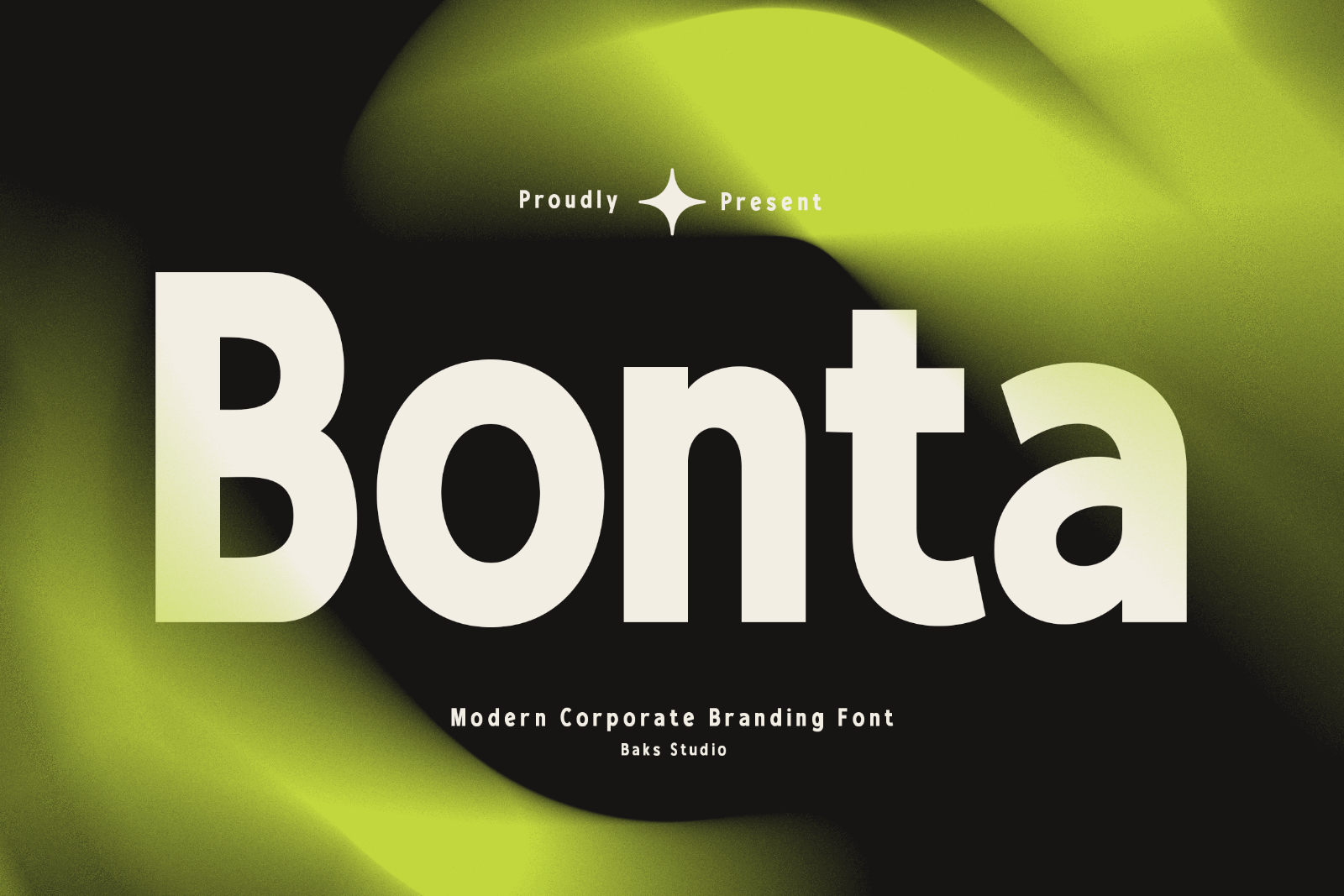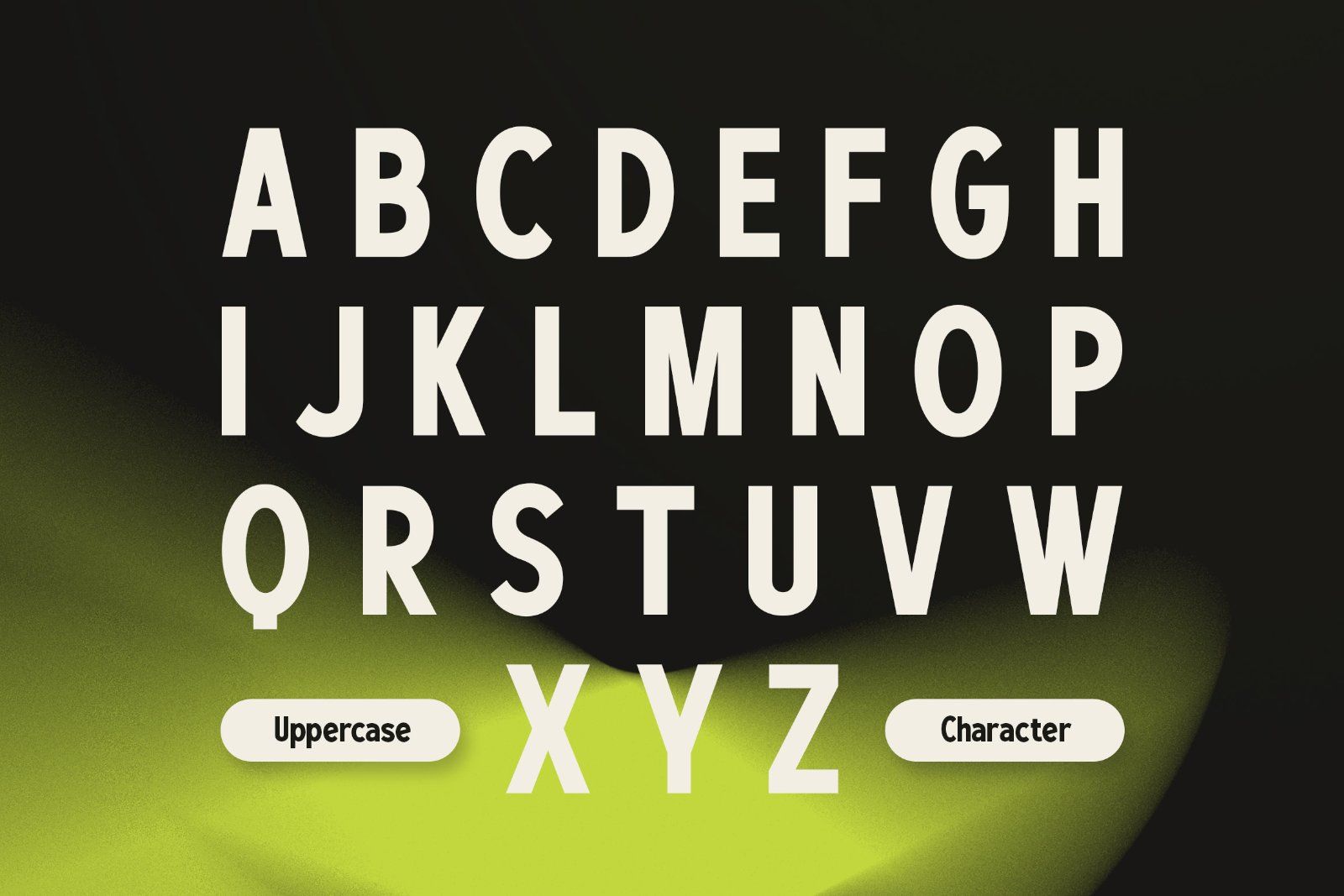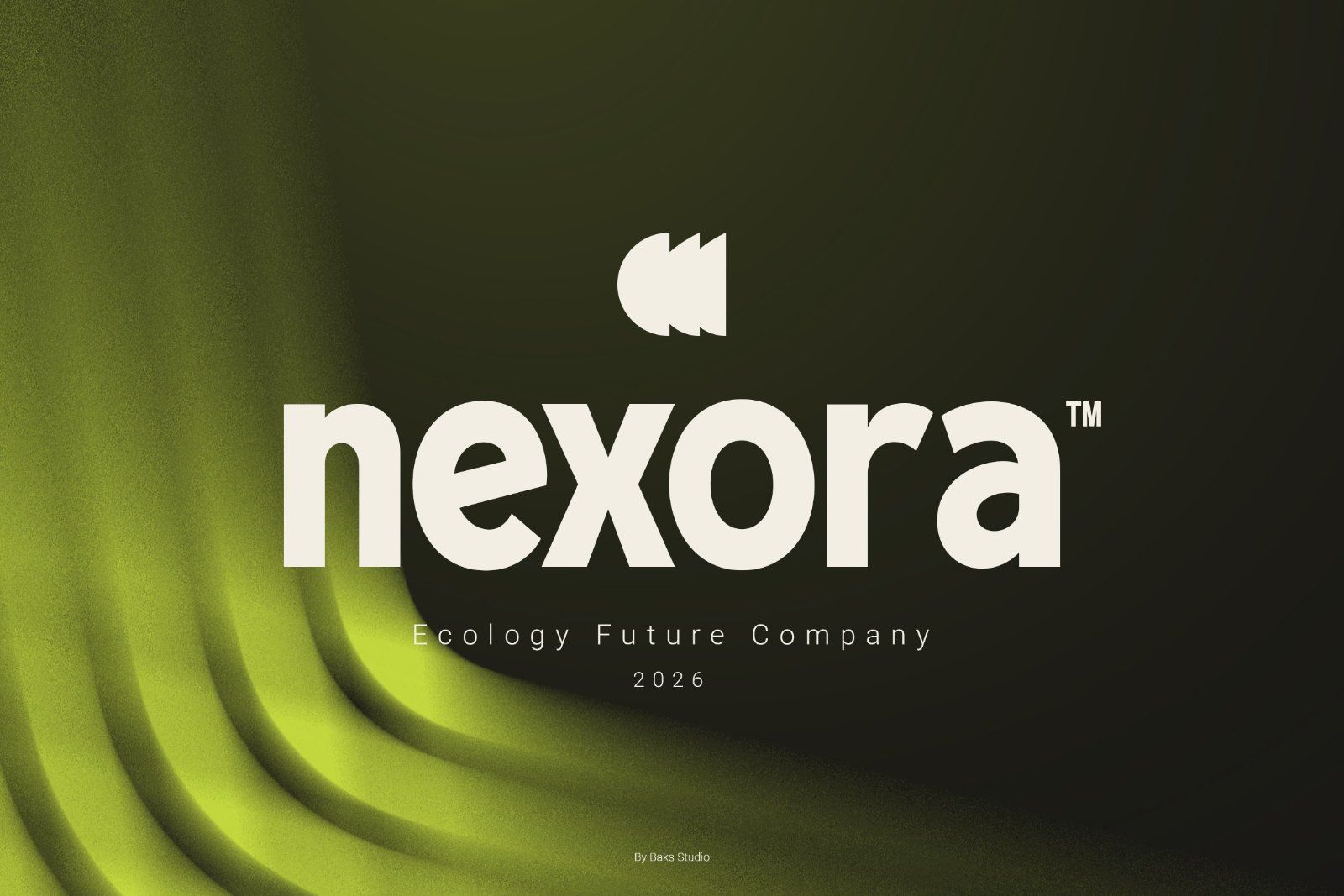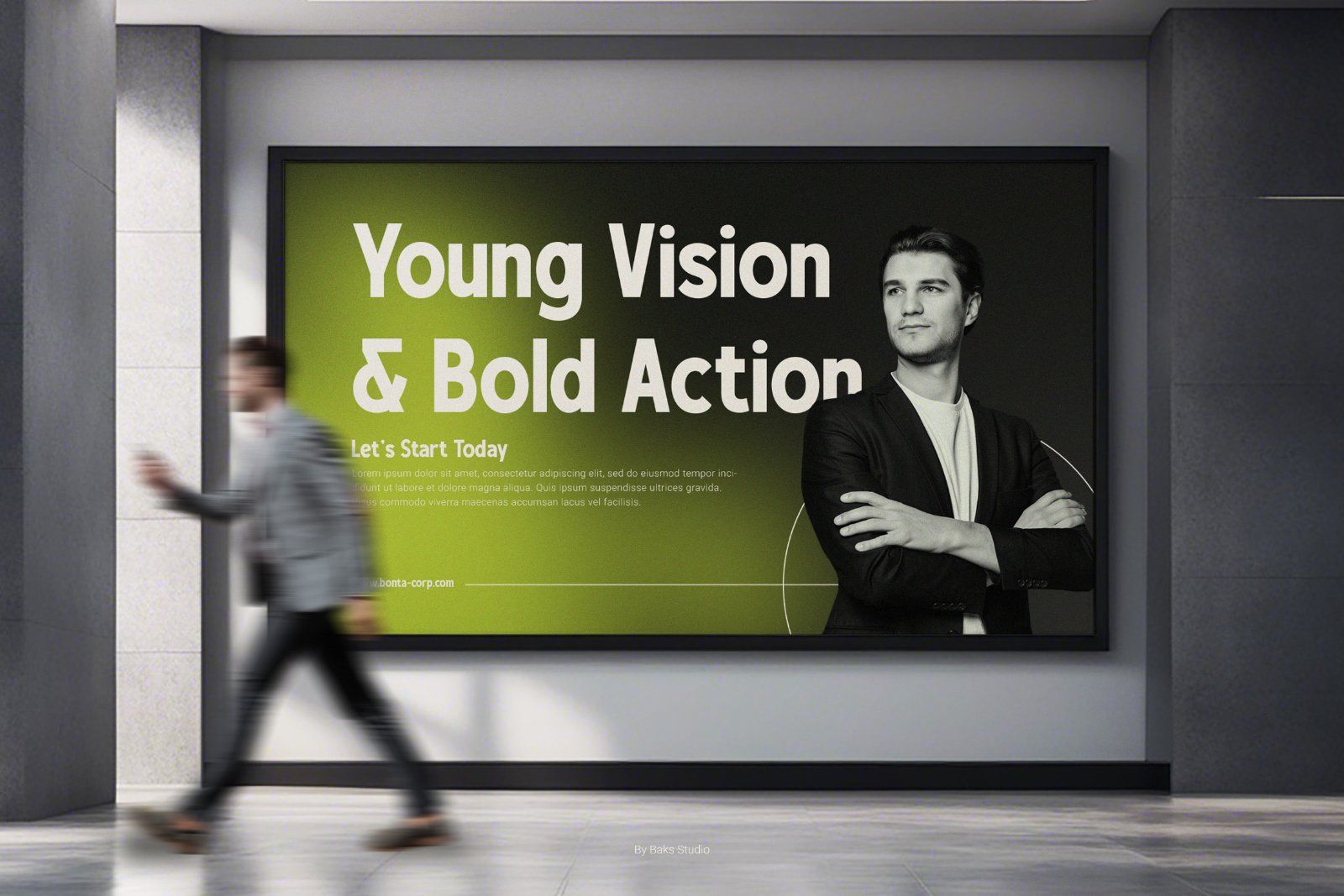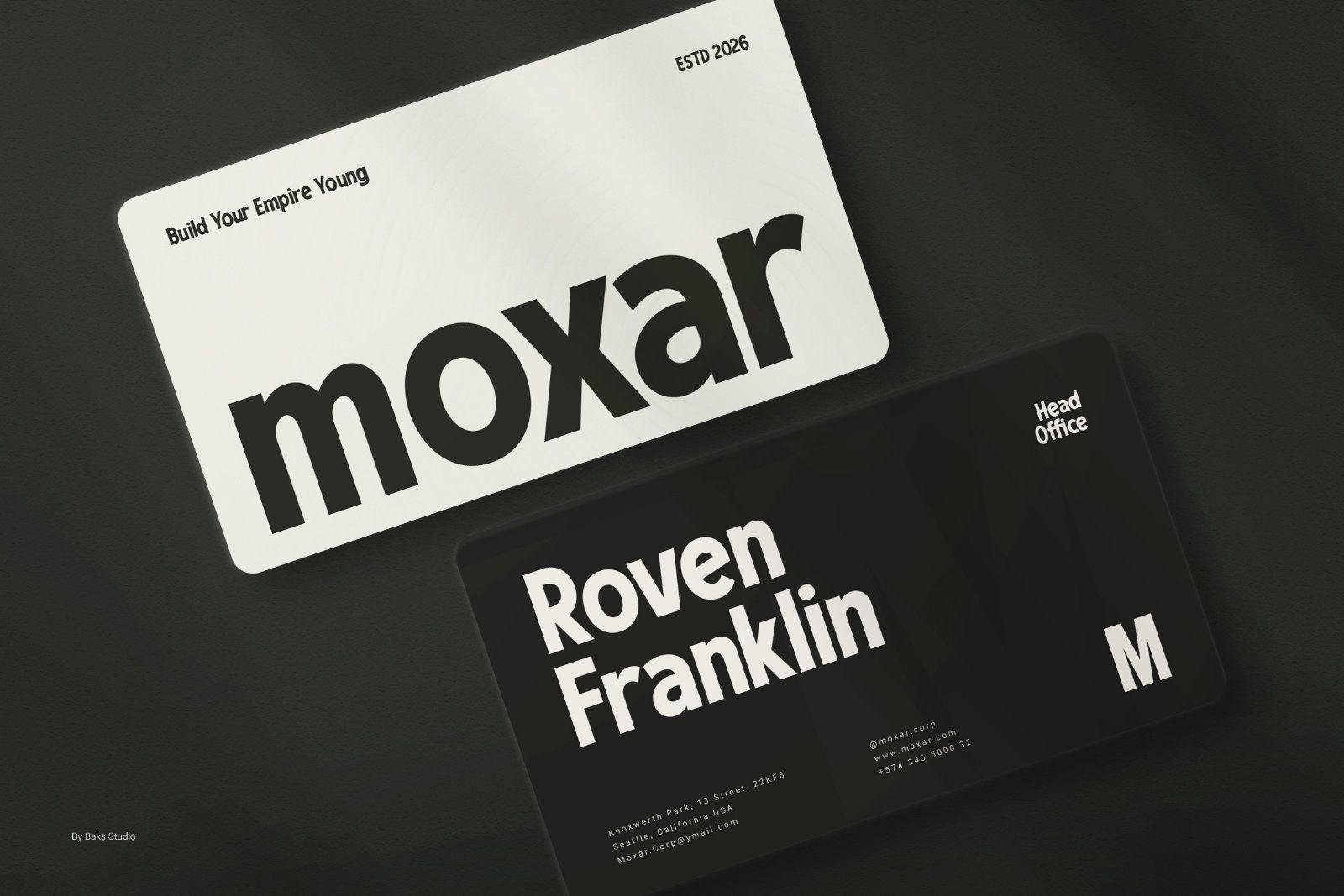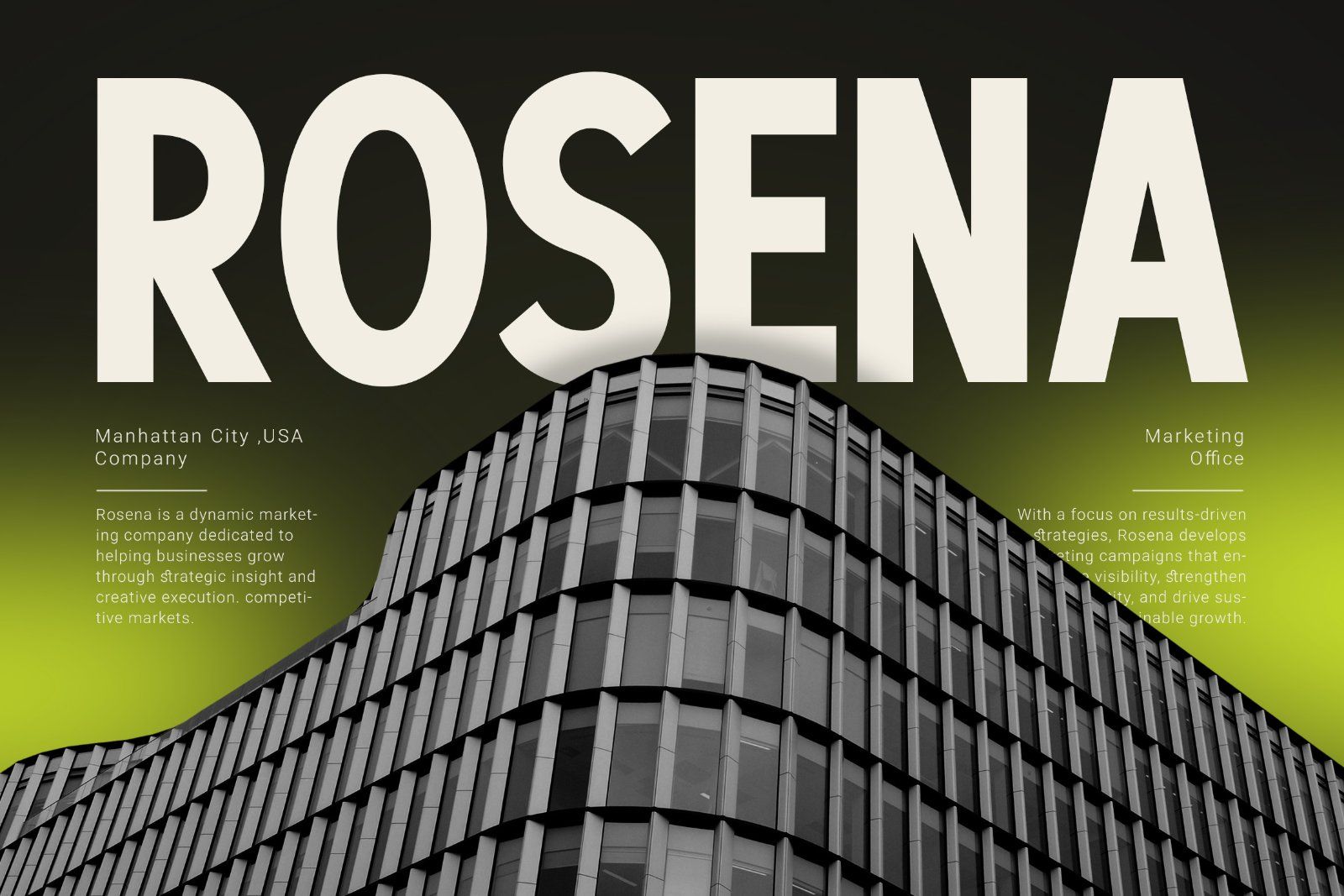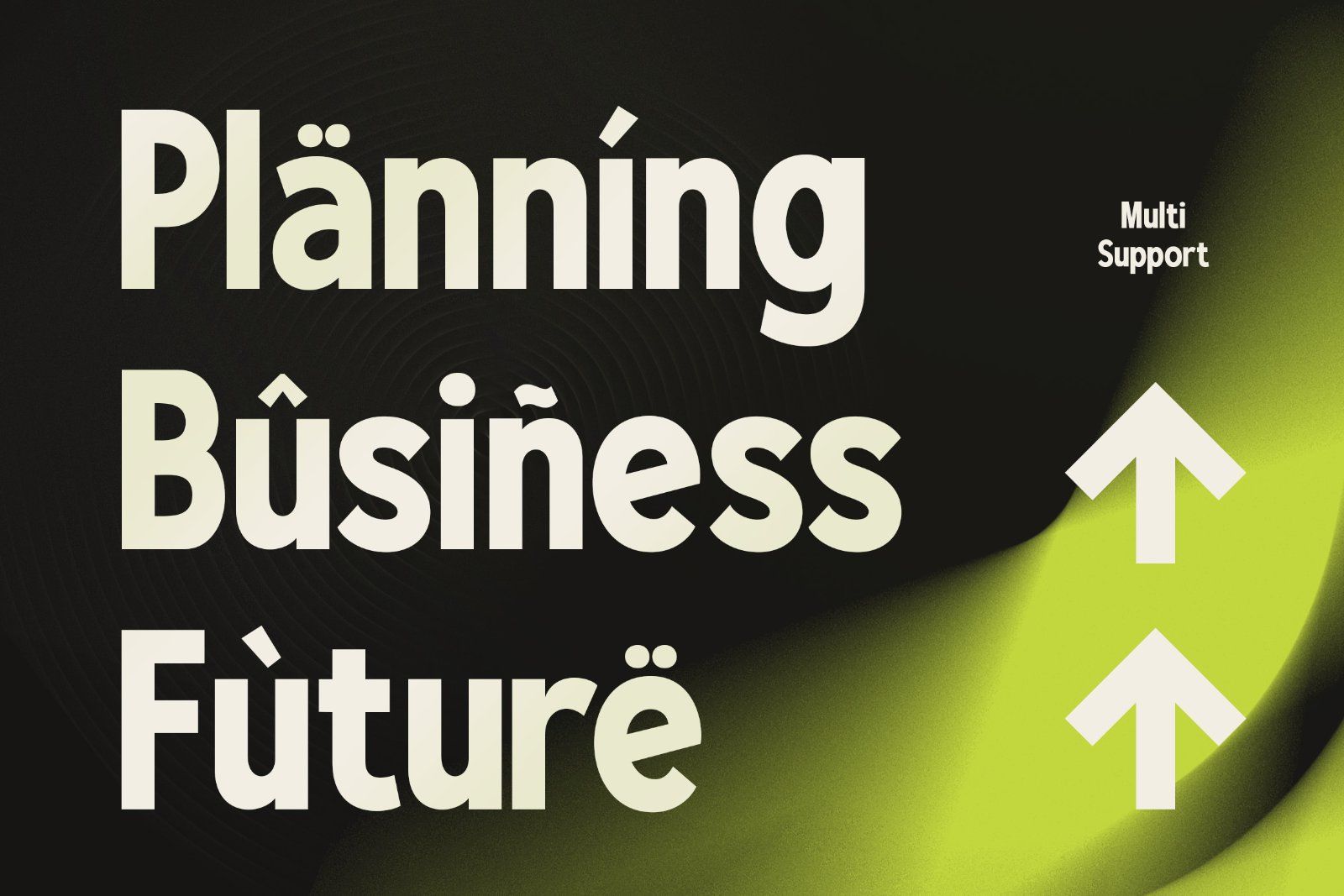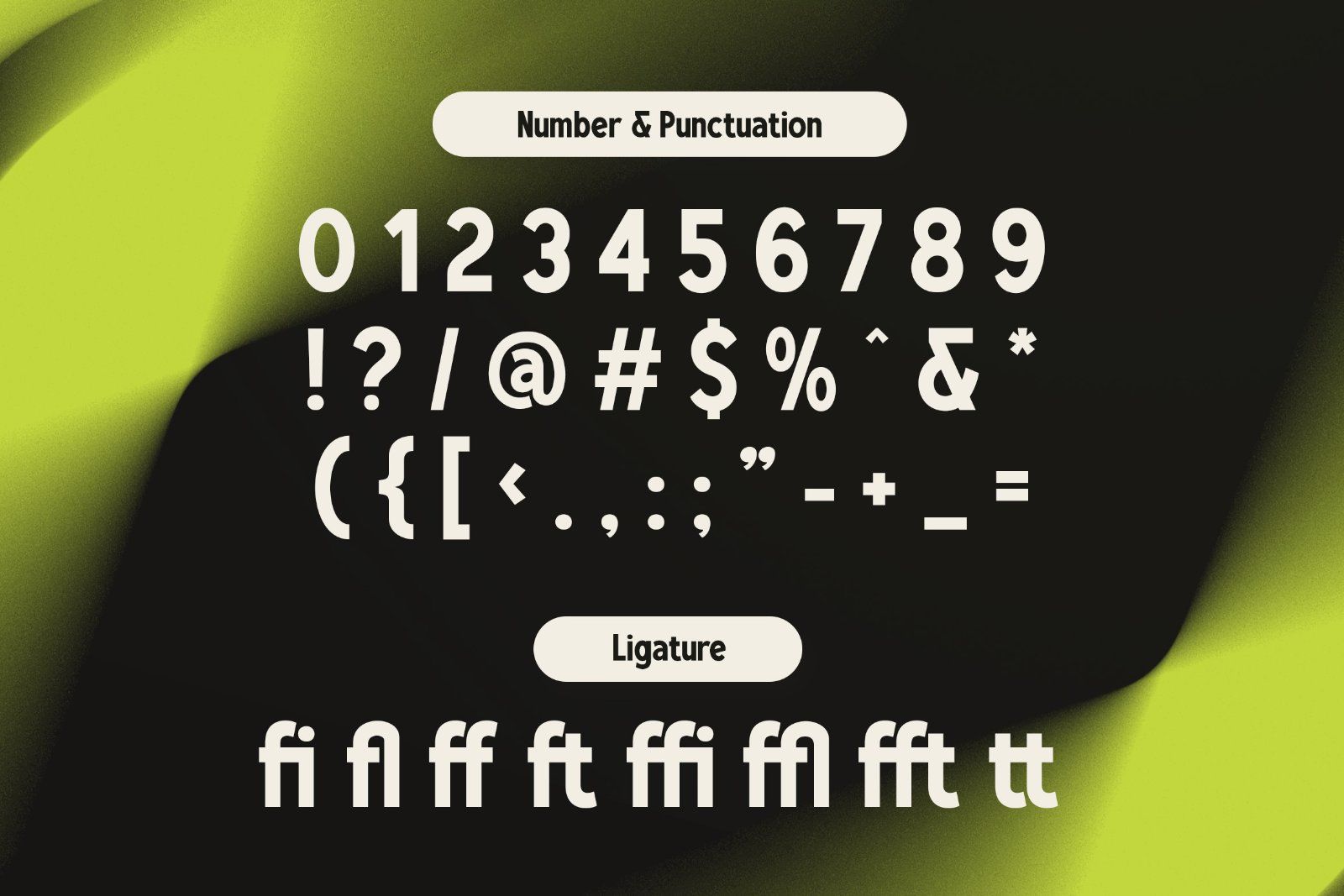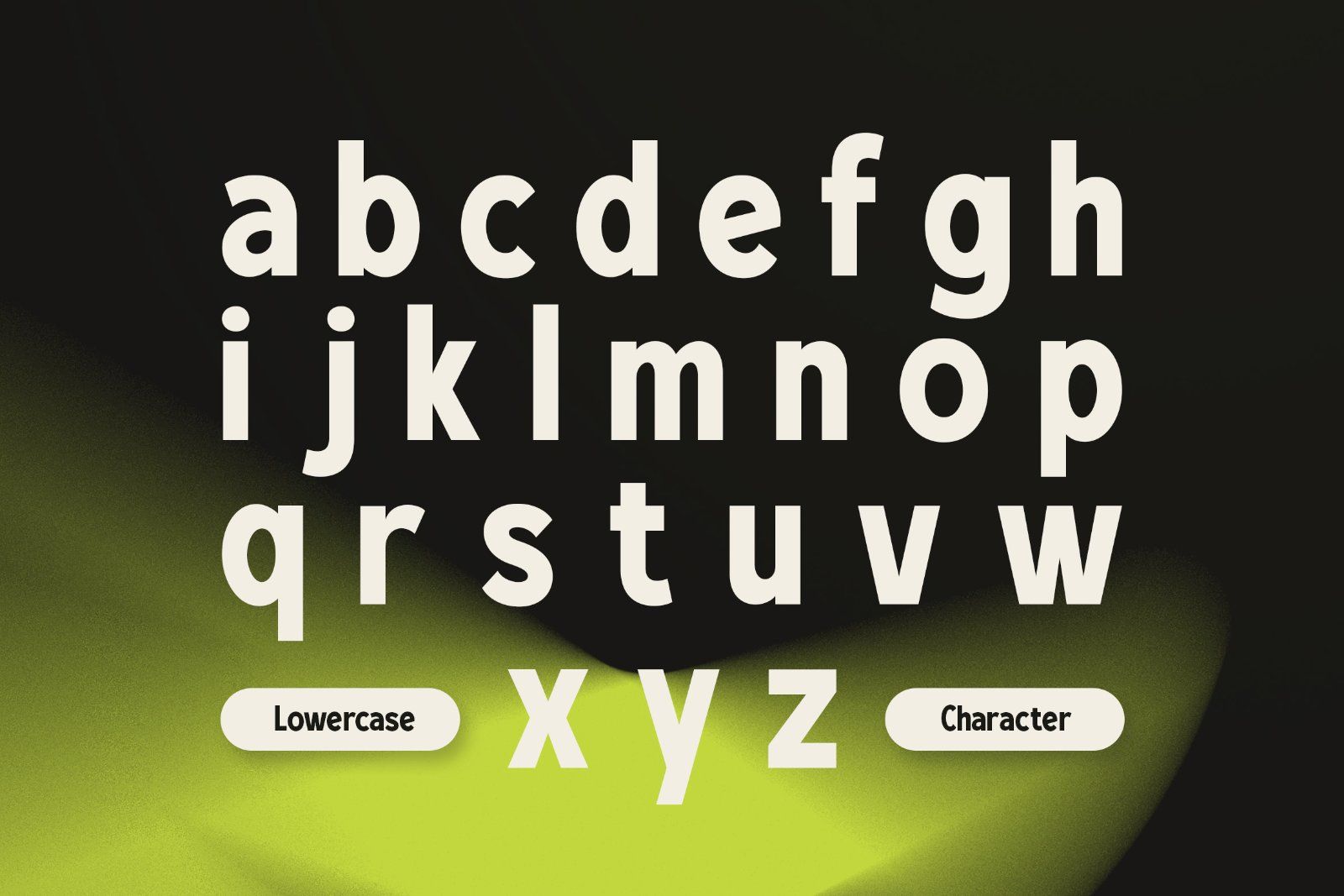
Introducing Bonta, a heavy weight, extended sans serif typeface meticulously engineered for the complexities of modern corporate identity. As a type designer, I crafted Bonta to serve a singular, commanding purpose to anchor premium commercial projects with an unshakeable sense of modern authority.
Bonta is perfect for :
– Primary Corporate Logotypes
– Global Branding Identity
– Tech and Startup Headers
– Premium Editorial and Cover Titles
– Marketing materials and presentations
– Clean, bold, and contemporary design projects
Available With :
• Uppercase
• Lowercase
• Number & Punctuation
• Ligature